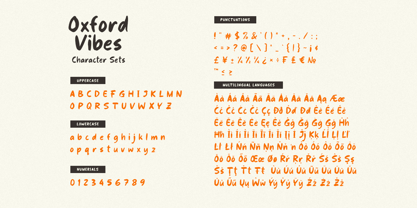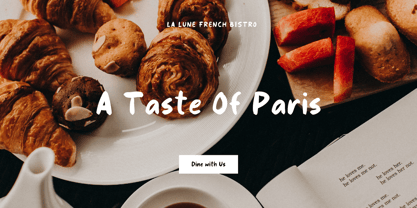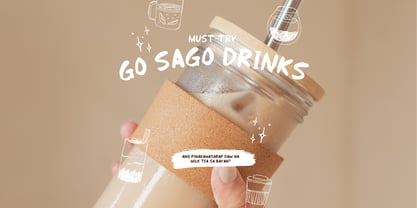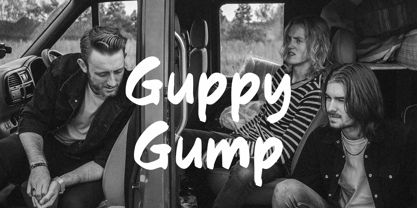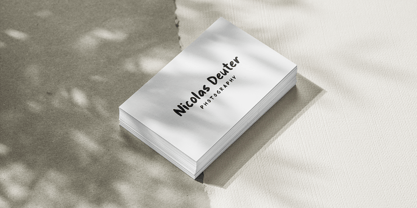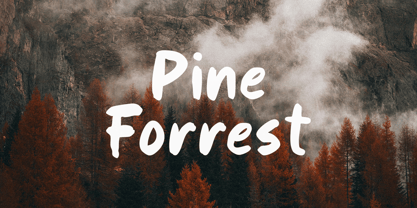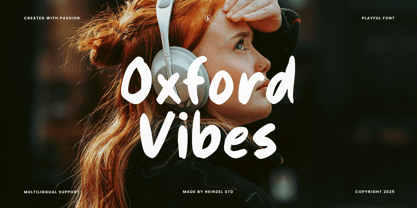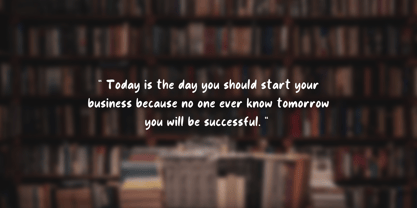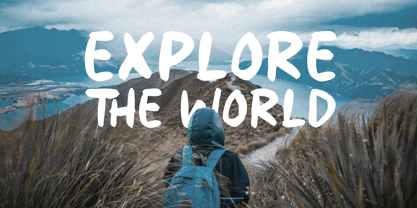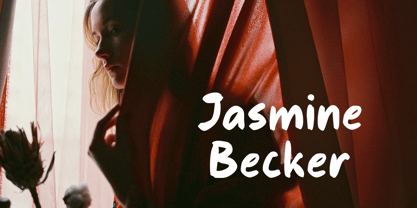
Oxford Vibes
by Heinzel Std
The Oxford Vibes Font Family was designed by Nofi Sofyan Hadi and published by Heinzel Std. Oxford Vibes contains 1 styles. More about this family
Oxford Vibes is a playful and natural handwritten font, ideal for adding a personal touch to your creative projects. With its free-flowing strokes and organic feel, this font is perfect for designing logos, crafting watermarks, and enhancing branding materials. Whether you're working on wedding invitations or creating inspiring quotes, Untuckle provides the charm and authenticity required for visually engaging text elements.
This versatile font seamlessly adapts to various contexts, making it a great choice for taglines and other creative needs. Its warm, inviting style ensures your work stands out while conveying an approachable and genuine message. Embrace Untuckle to bring a touch of whimsy and elegance to your designs, effortlessly transforming ordinary projects into extraordinary creations.
Designers: Nofi Sofyan Hadi
Foundry: Heinzel Std